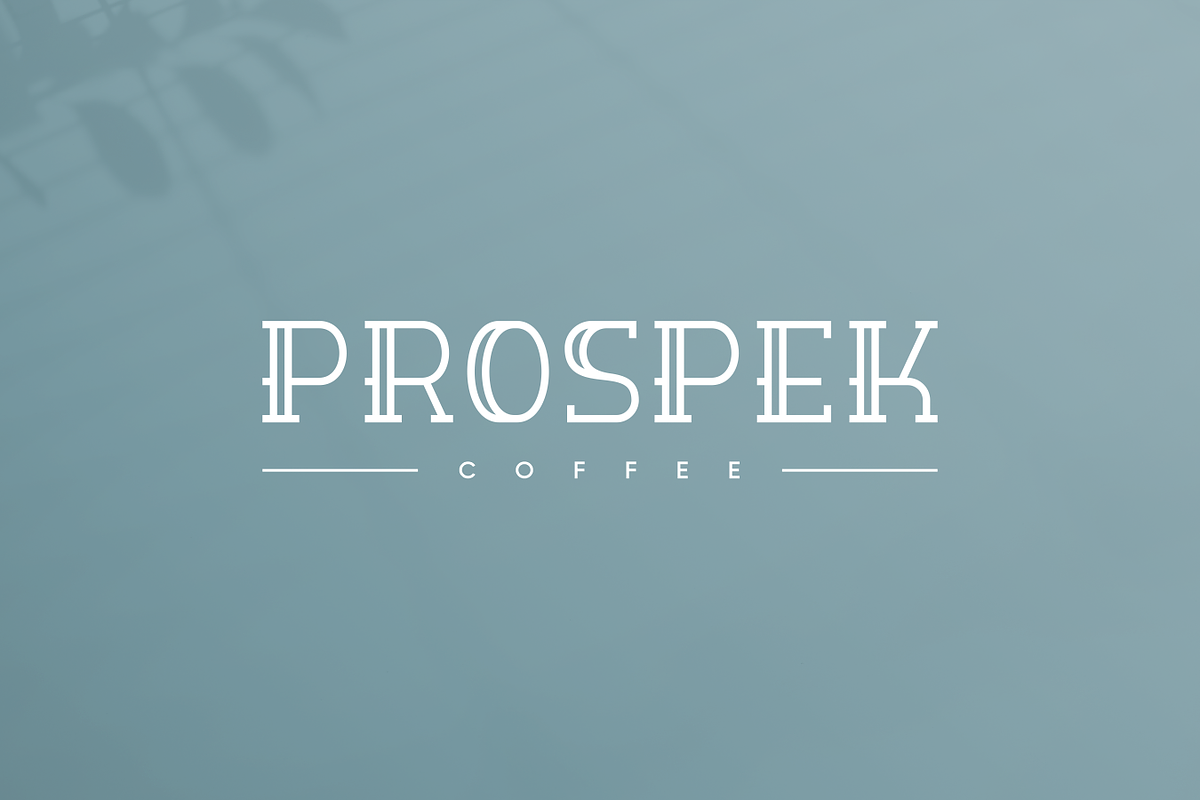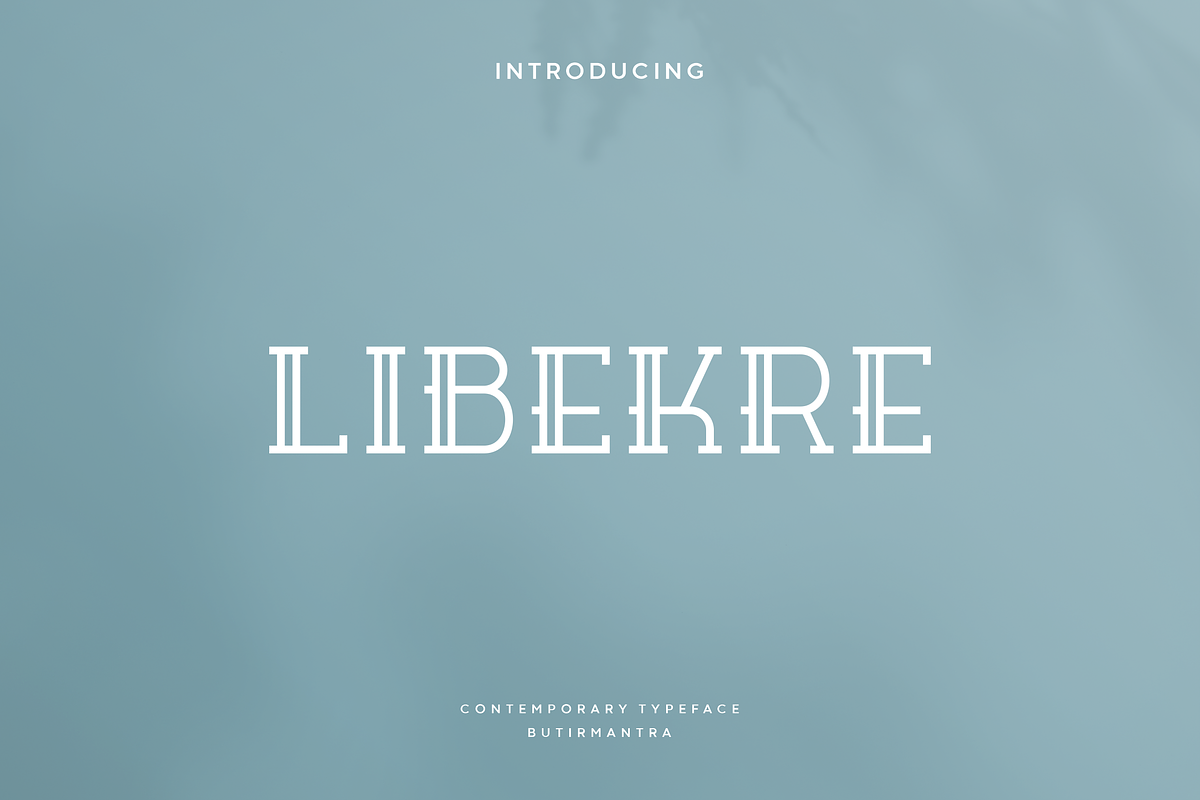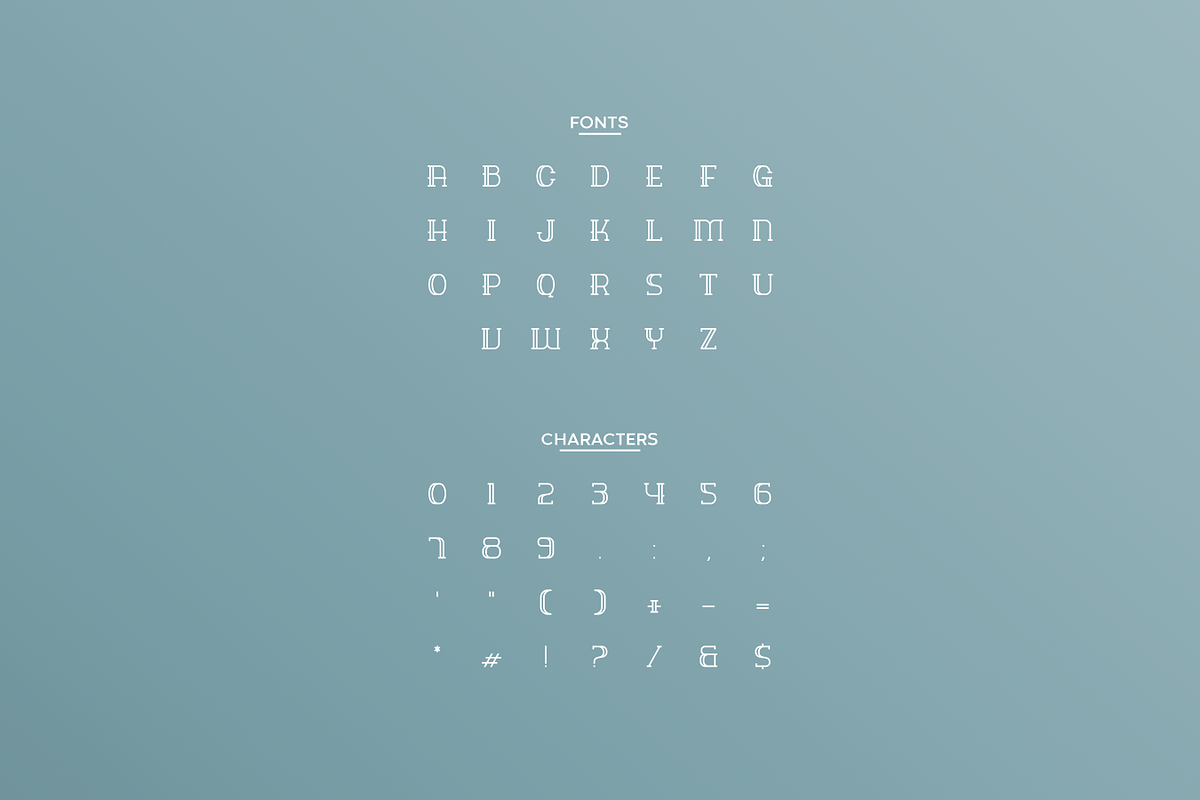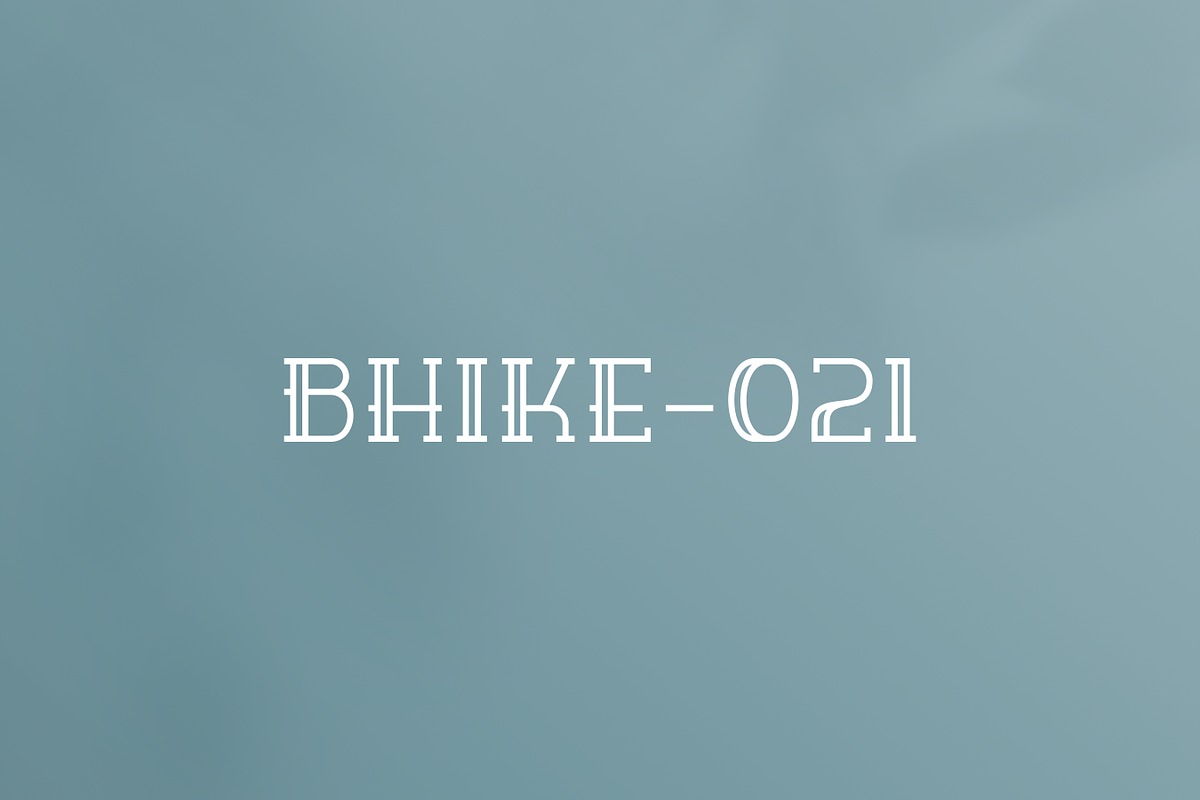
Libekre - Modern Luxury Typeface
Libekre is a serif font that brings back old style with a modern look. With thin and clean dimensions, it looks timeless, elegant and very classy. This font would be suitable for jewelery package designs, titles, logos and many other types of designs.
- Punctuation & Number